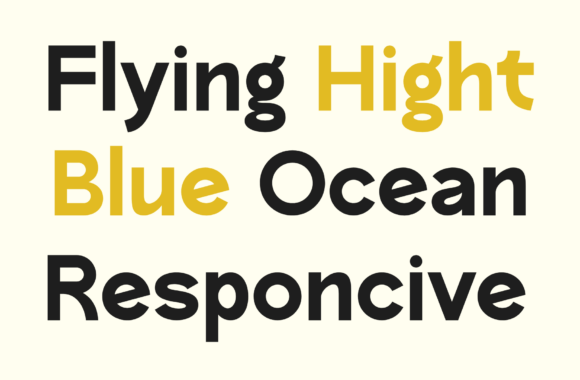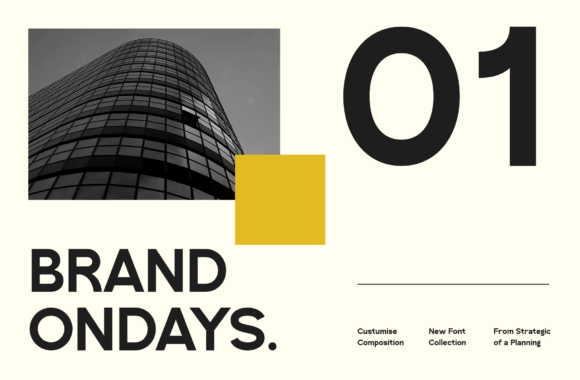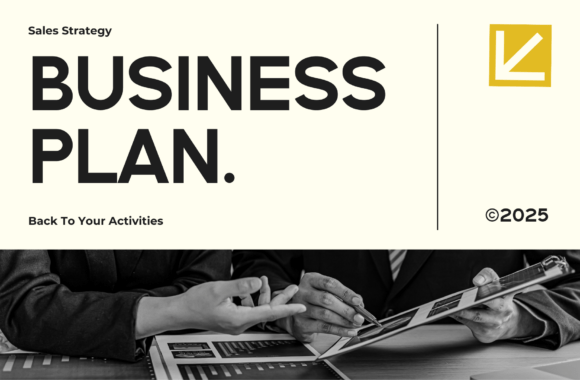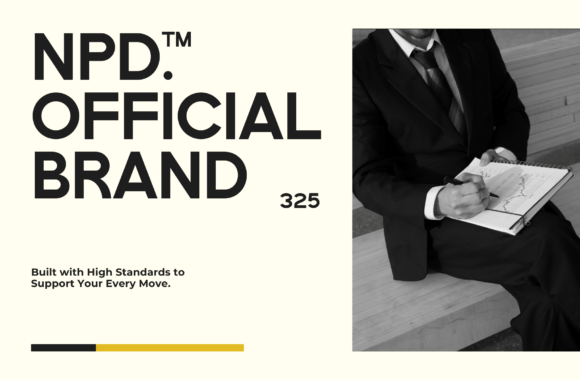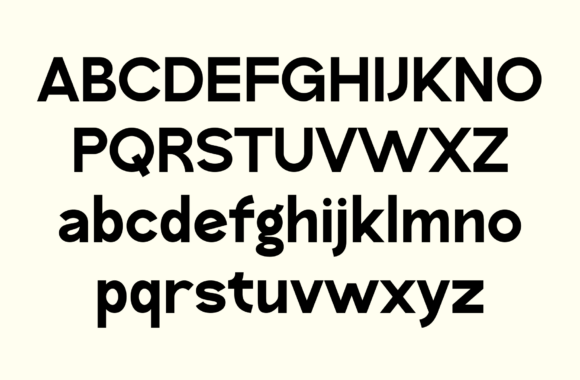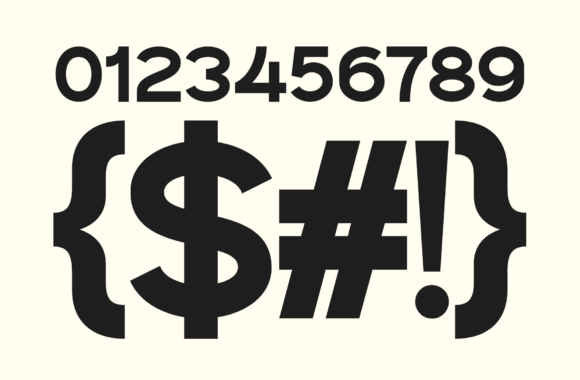
Introduction to Meiro Font
Introducing our new product **Meiro ** – Modern Clean Sans Serif Meiro is a modern, clean sans-serif font designed for contemporary visual needs.
With its bold structure, smooth curves, and balanced proportions, Meiro delivers a strong yet minimalist look that’s perfect for both digital and print design This typeface is ideal for branding, logos, headlines, posters, web design, social media, editorial layouts, and corporate projects.
Key Features of Meiro Font
Why Choose Meiro Font?
Meiro Font offers exceptional quality and versatility, making it a valuable addition to your design toolkit. Whether you’re creating for personal projects or commercial use, Meiro Font delivers professional results.